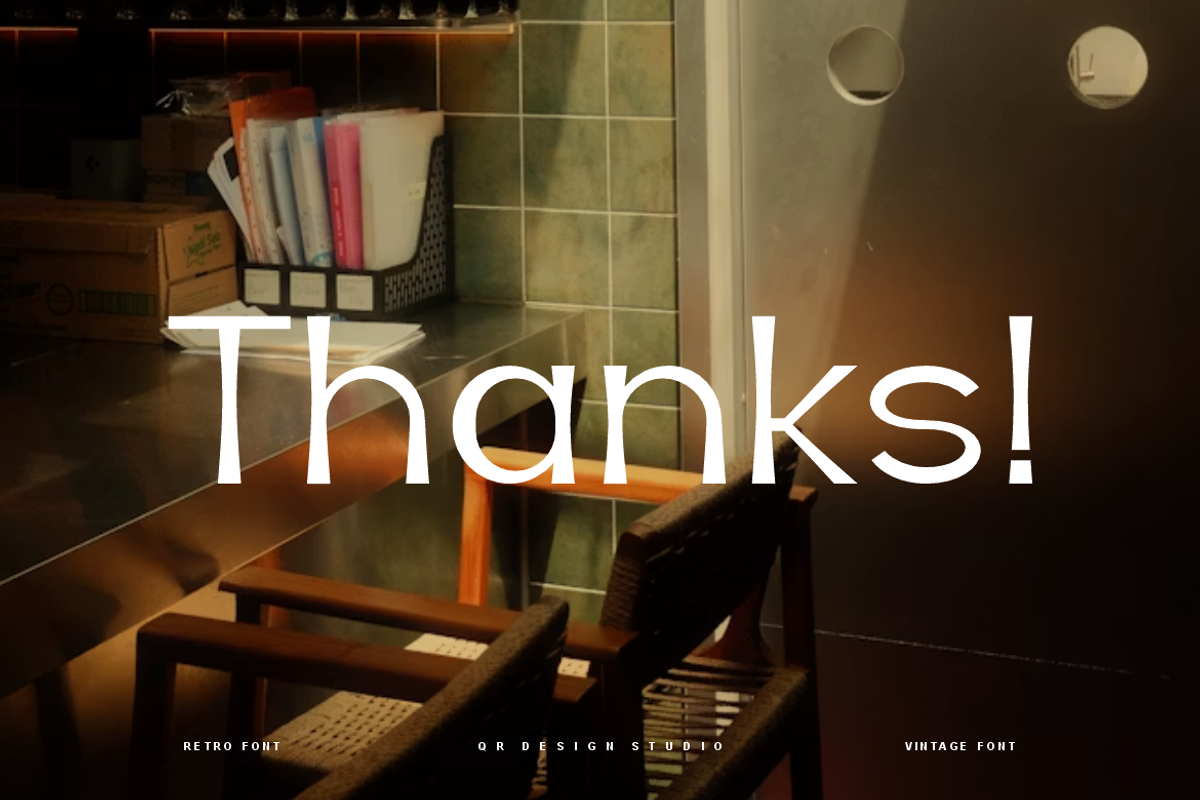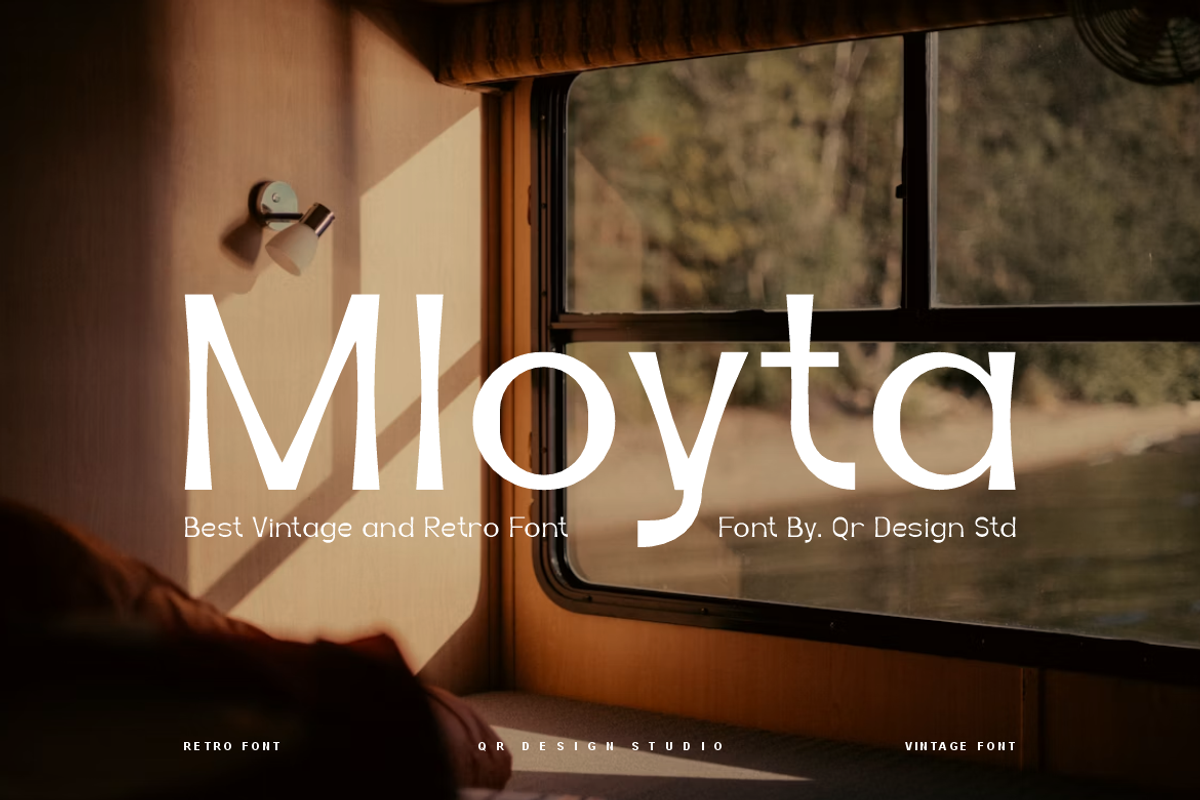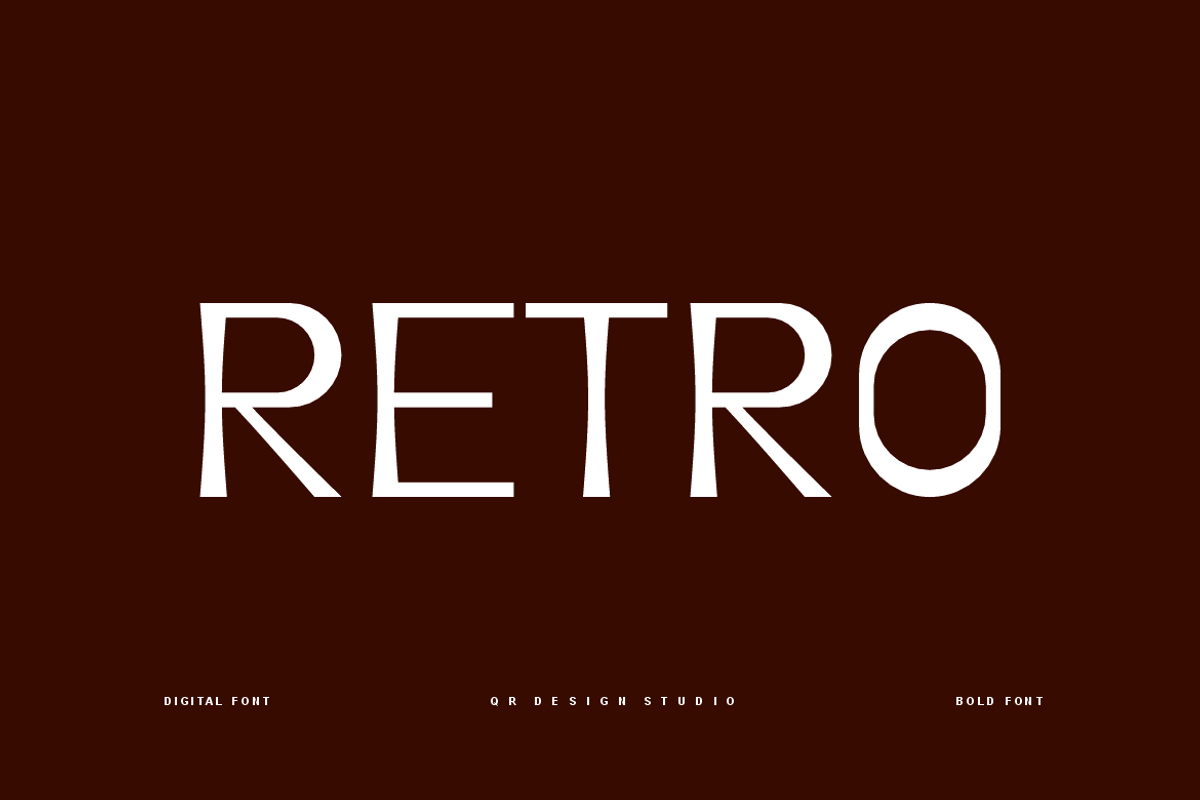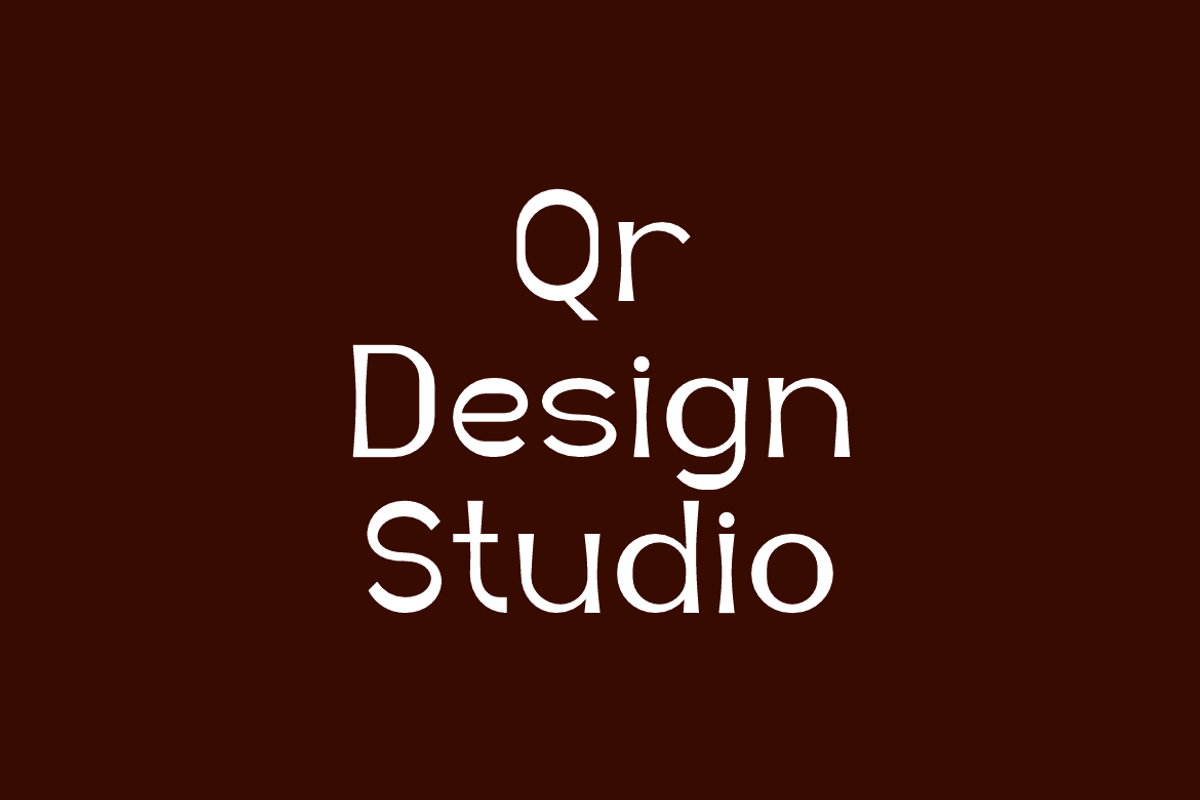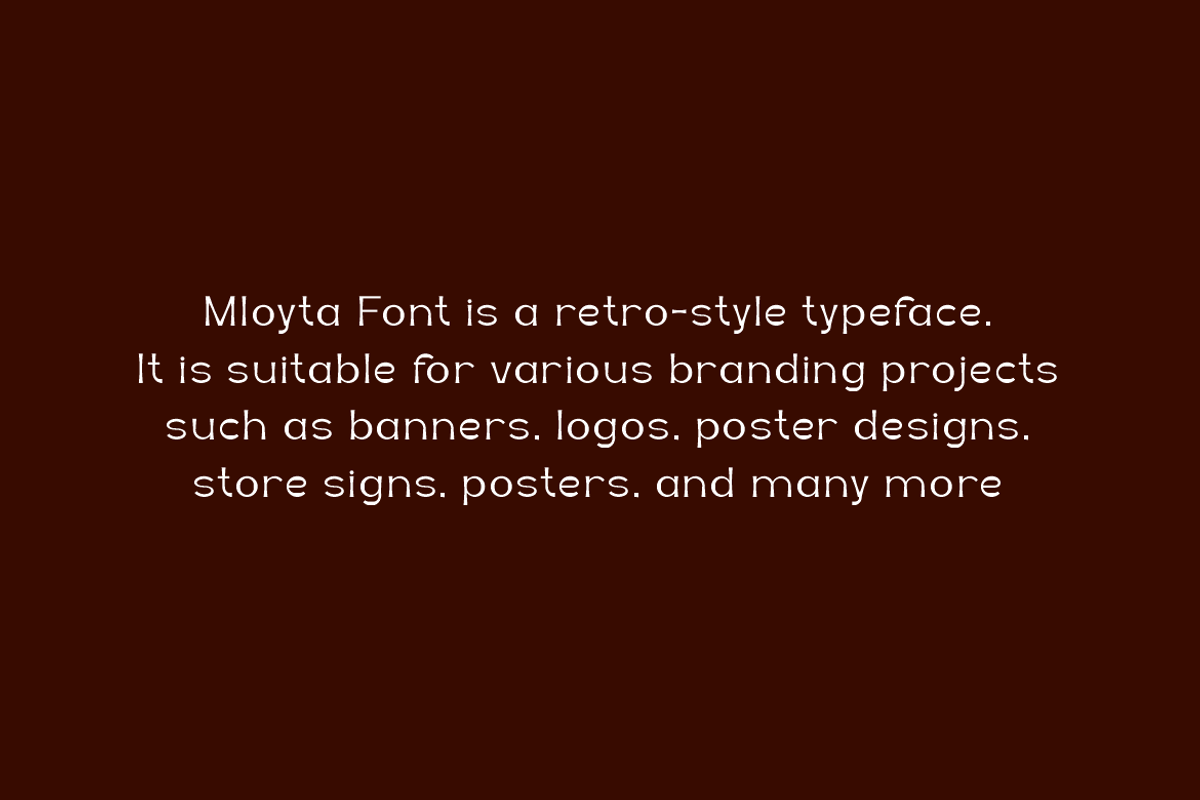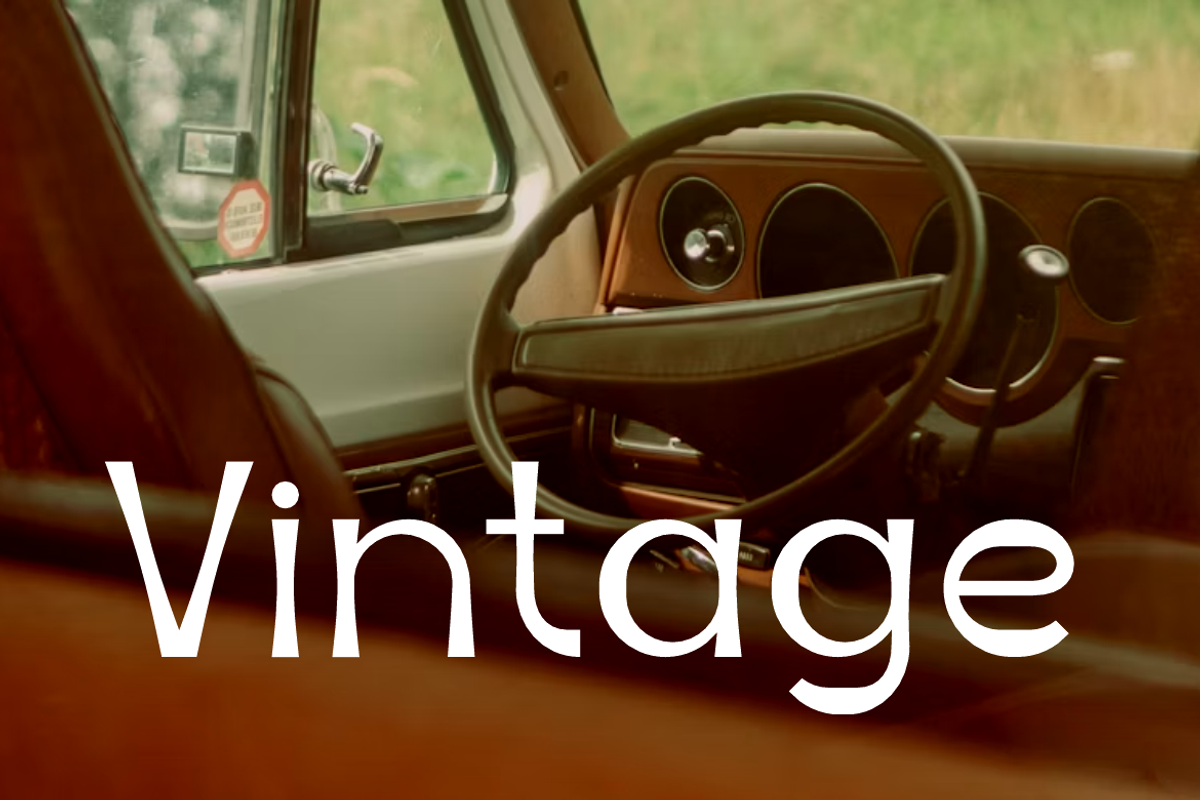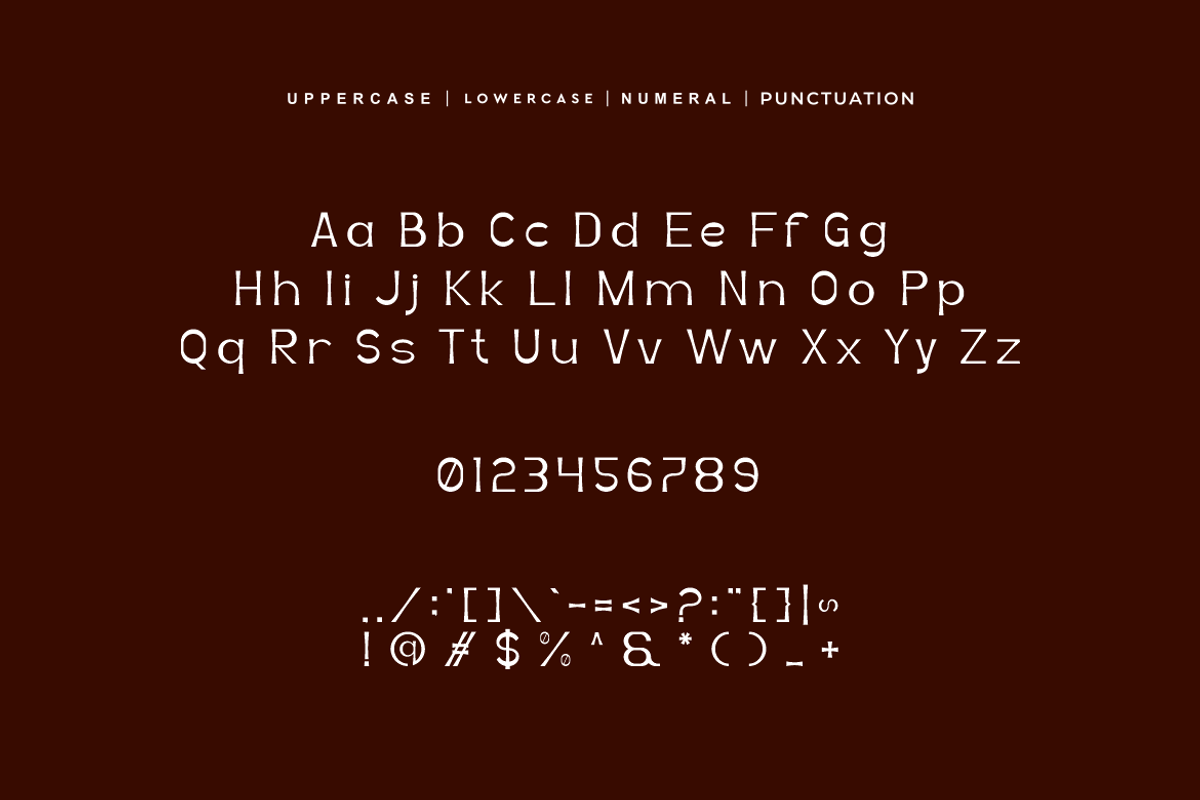
Mloyta - Retro Font
Mloyta Font is a retro and authentic display typeface.
It’s perfect for various branding projects such as logos, modern designs,
and more. This font stands out beautifully in a wide range of contexts.